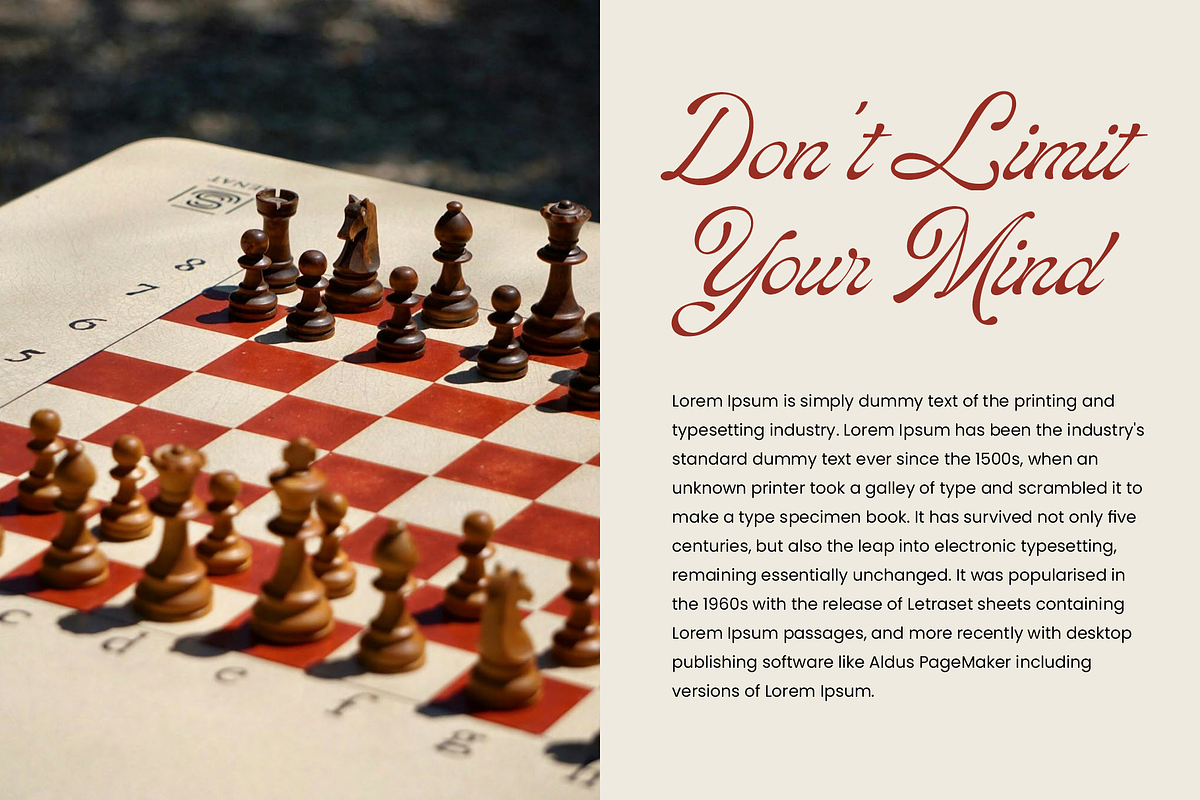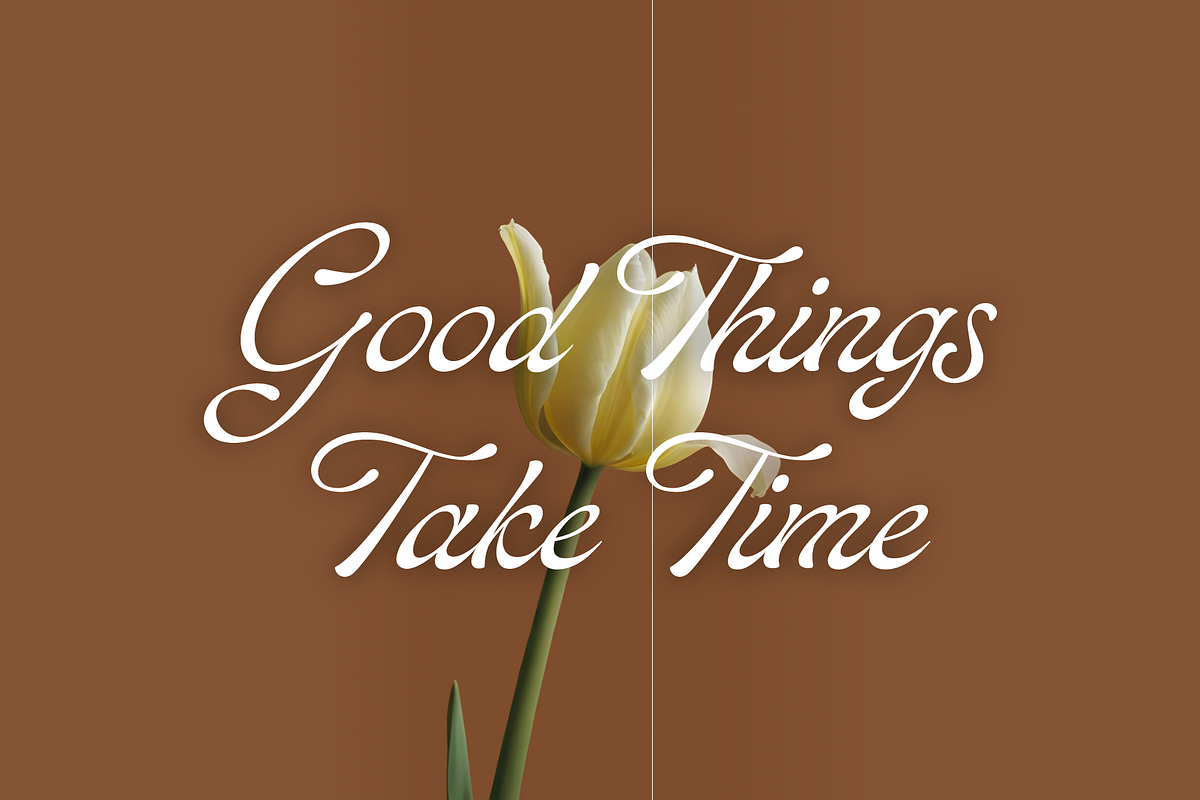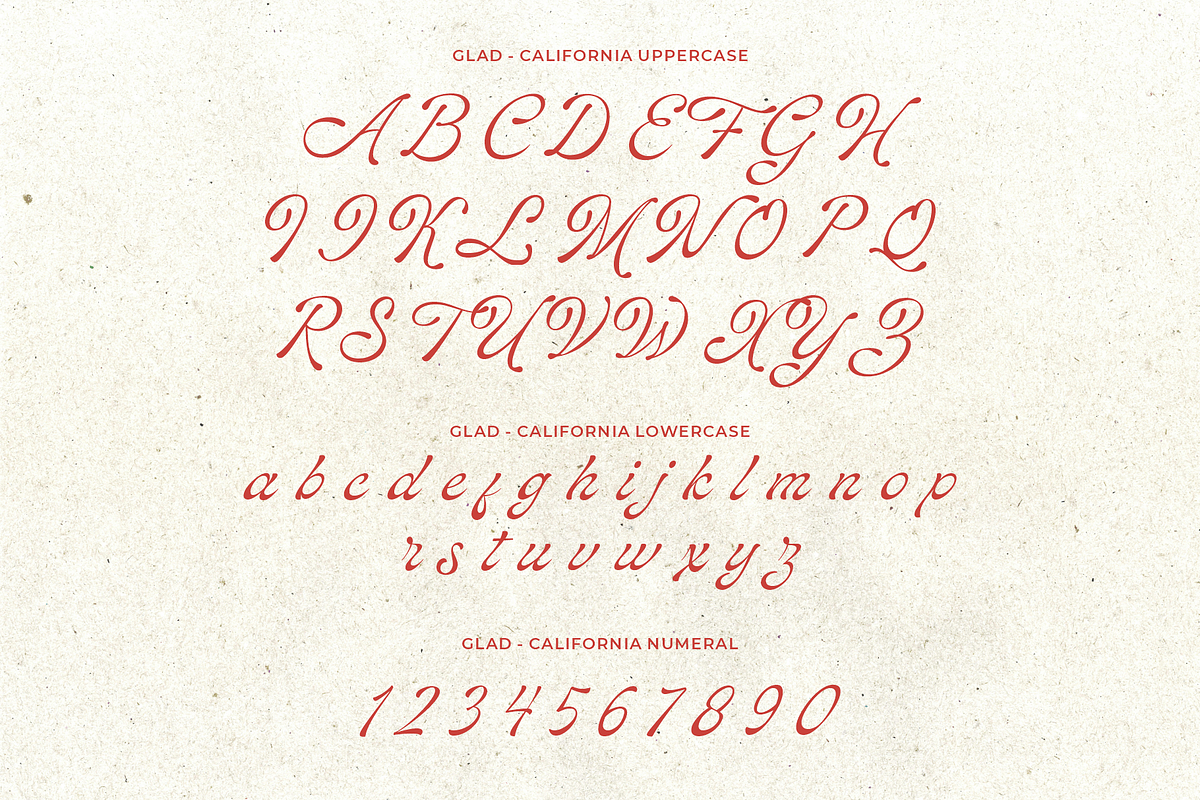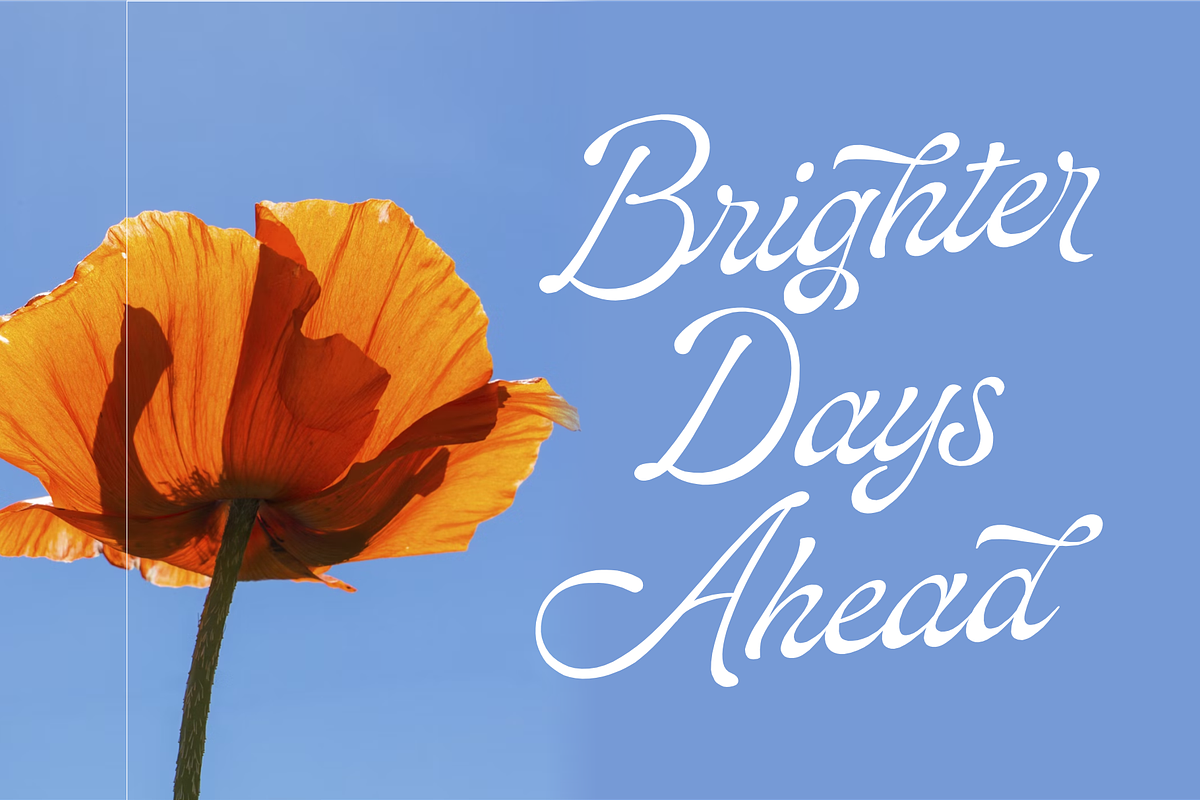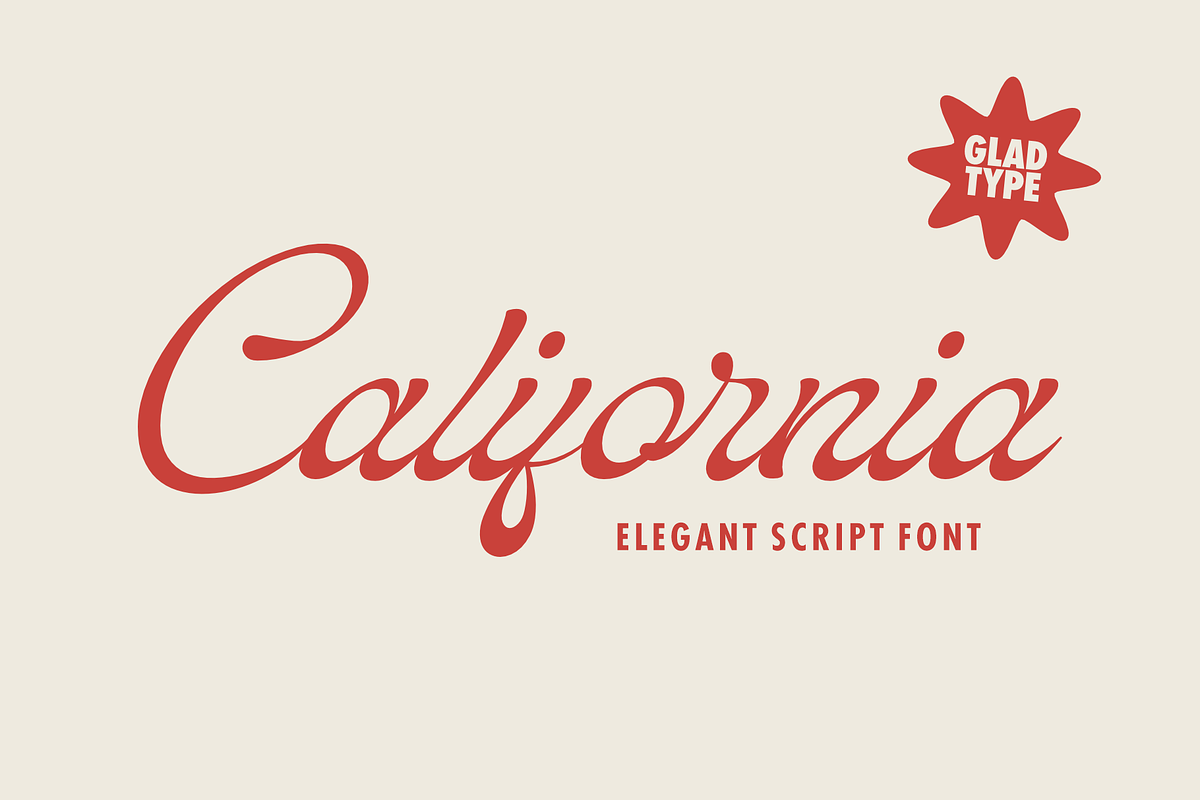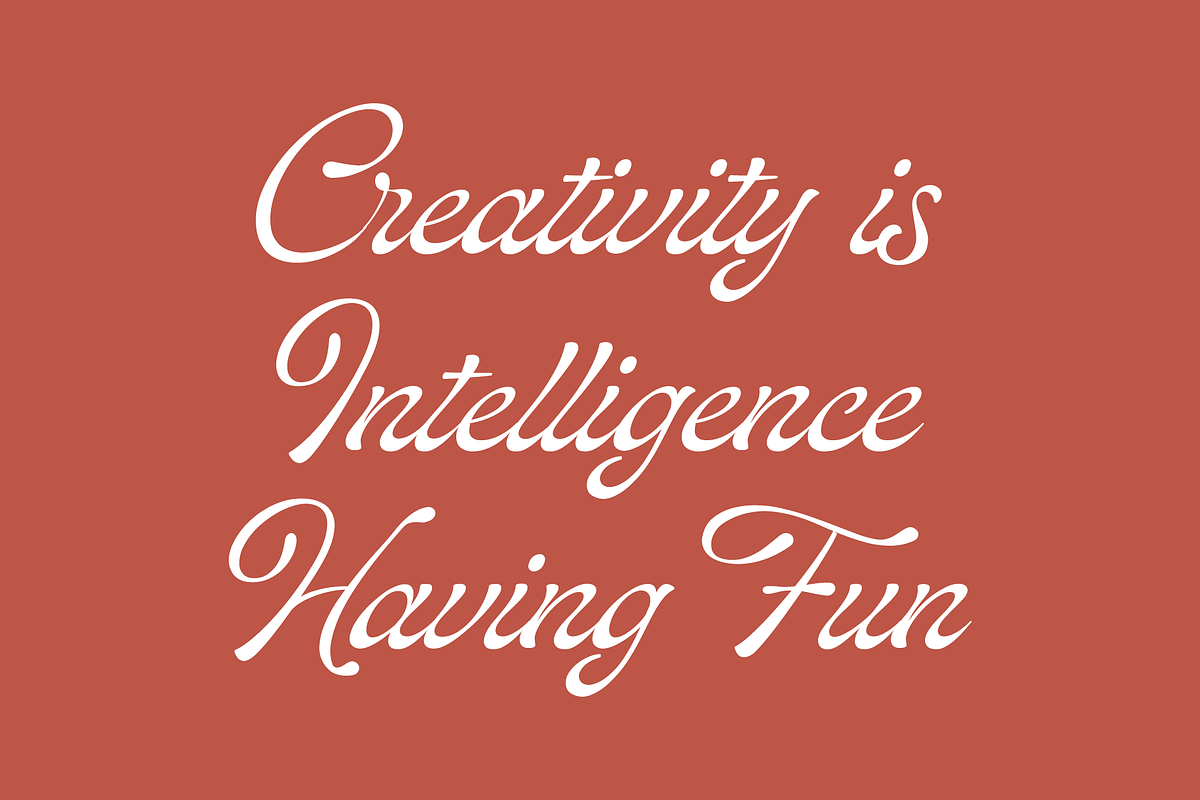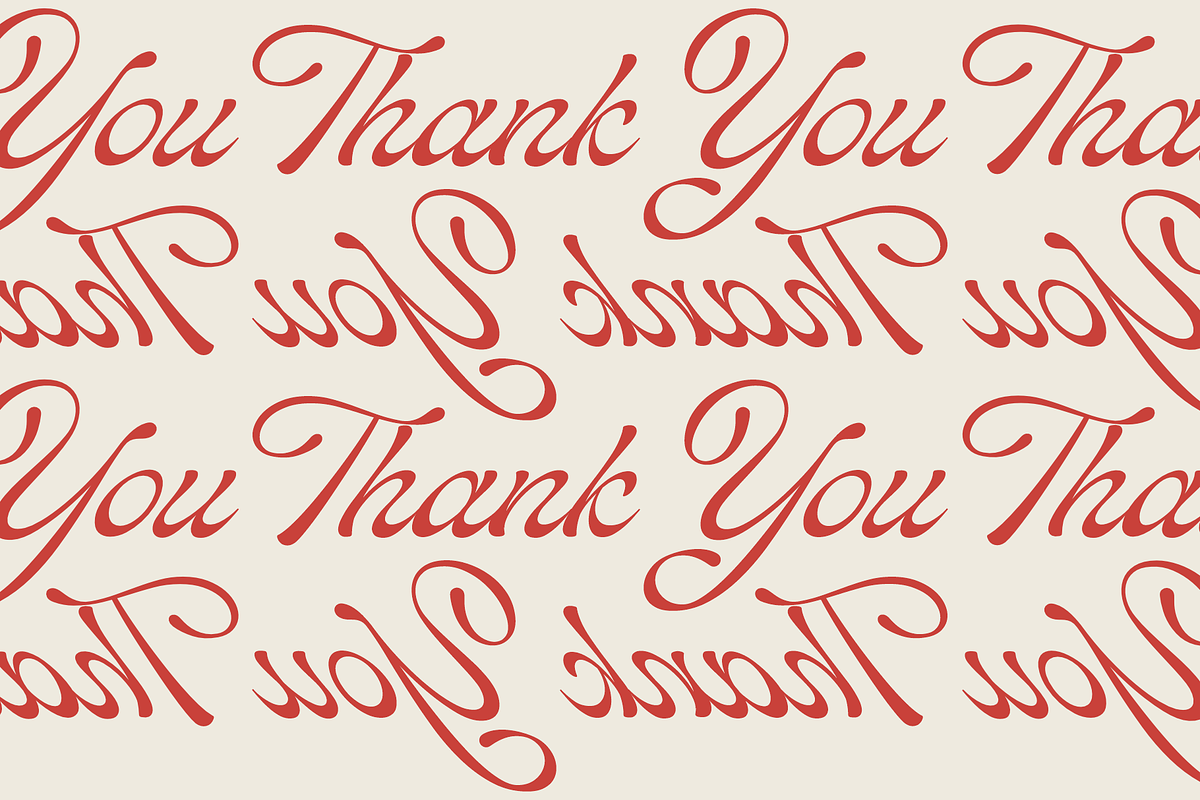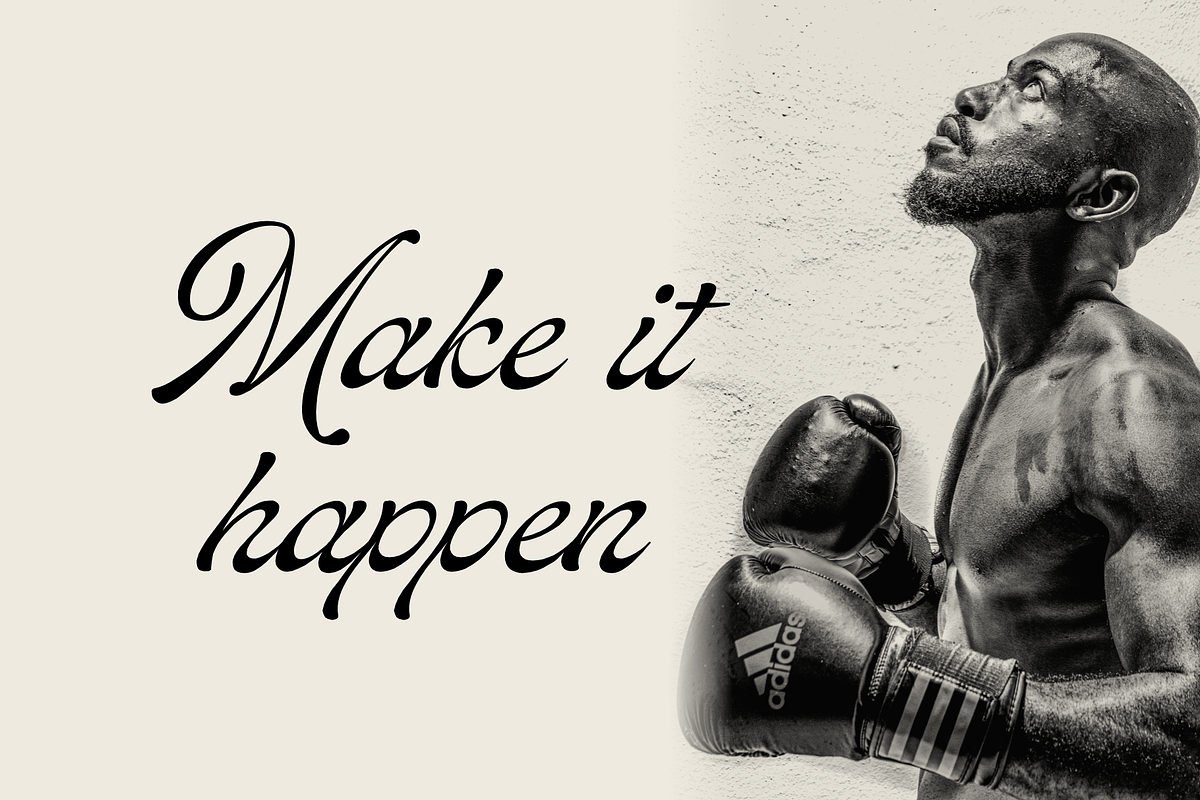
GLAD - CALIFORNIA
GLAD - California – Modern Classic Handwriting Font
Bring timeless elegance to your designs with Glad - California Script, a modern classic script font inspired by the graceful strokes of traditional book handwriting. This font is meticulously crafted to elevate your creative work with a natural, flowing style that feels both refined and personal.
✨ Packed with Features:
✅ Rich of Stylistic Alternates and Ligatures for customization
✅ Full Multilingual Support for global reach
Whether you're designing a luxury logo, crafting wedding invitations, or adding a personal touch to magazine layouts, Lavonia Script delivers elegance and versatility every time.